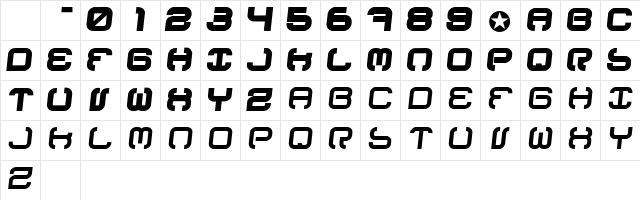
Complete Paganspace BTE Edition Paganspace glyph index. Displaying only characters natively supported by Paganspace BTE Edition Paganspace font.
Paganspace BTE Edition is a composed and adaptable typeface that performs quietly and consistently across a wide range of design contexts.